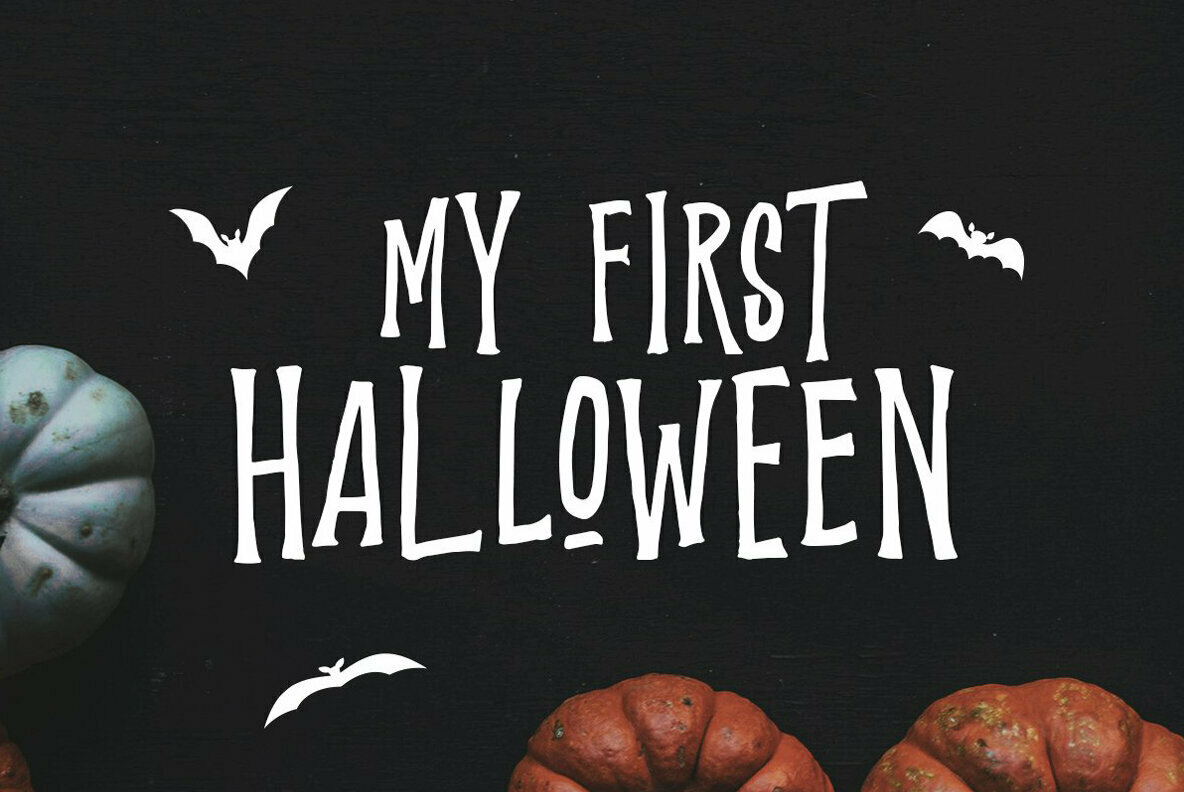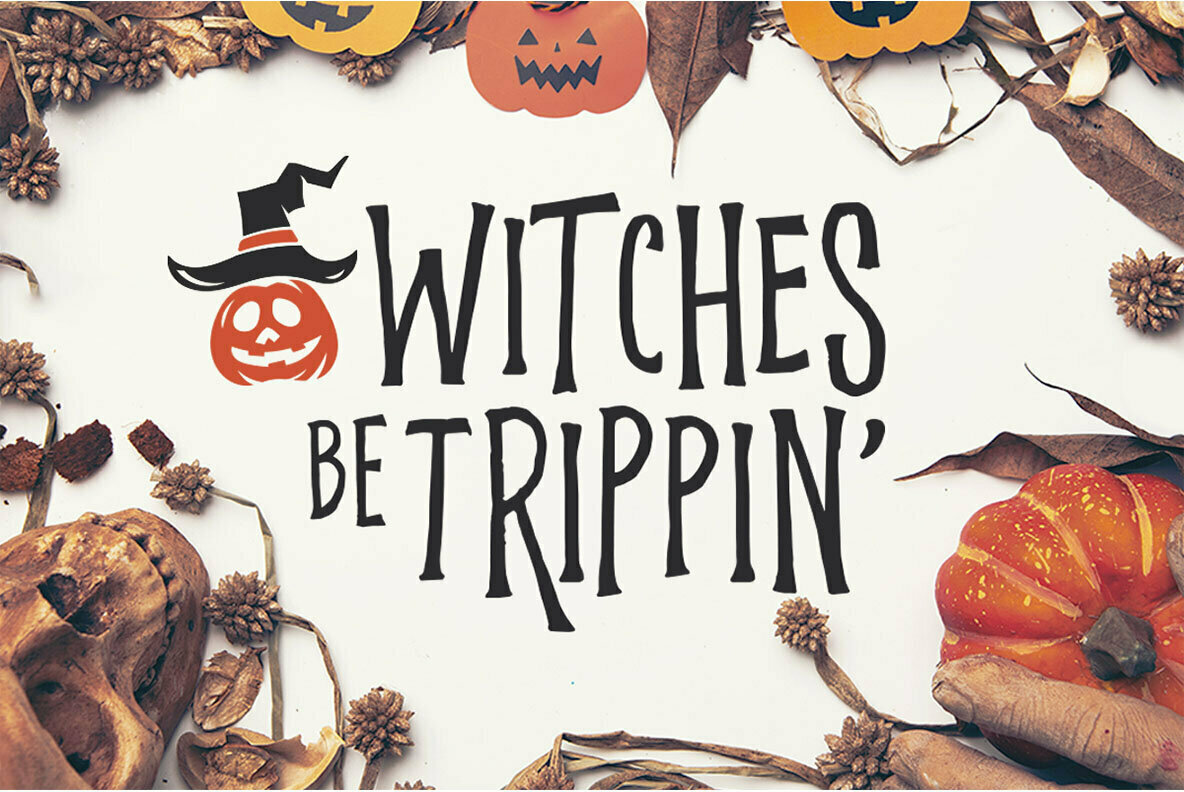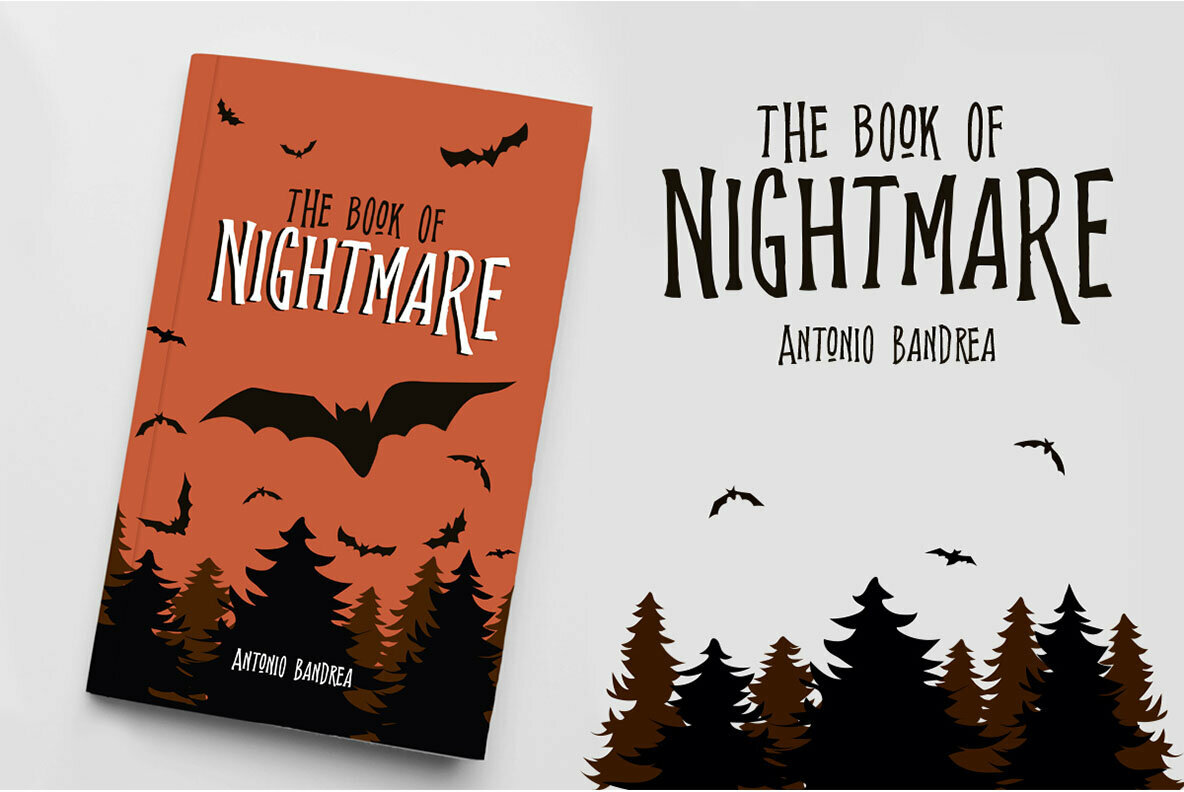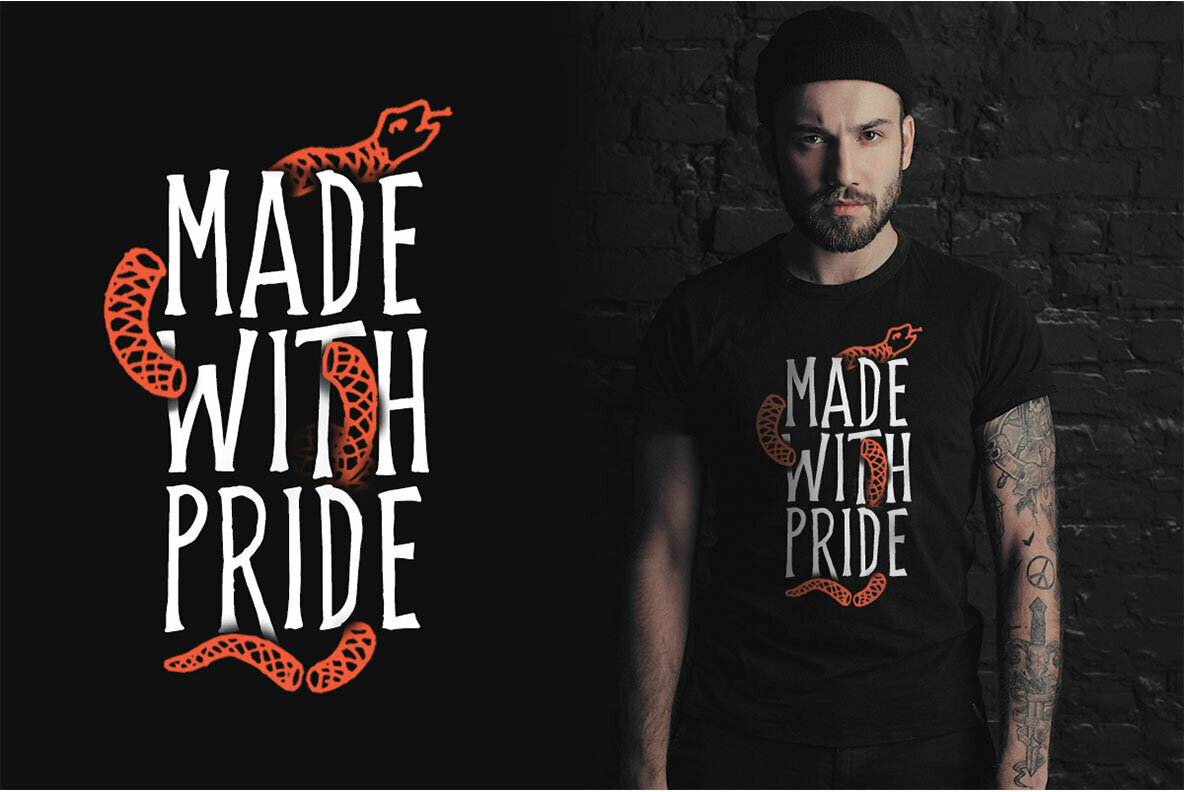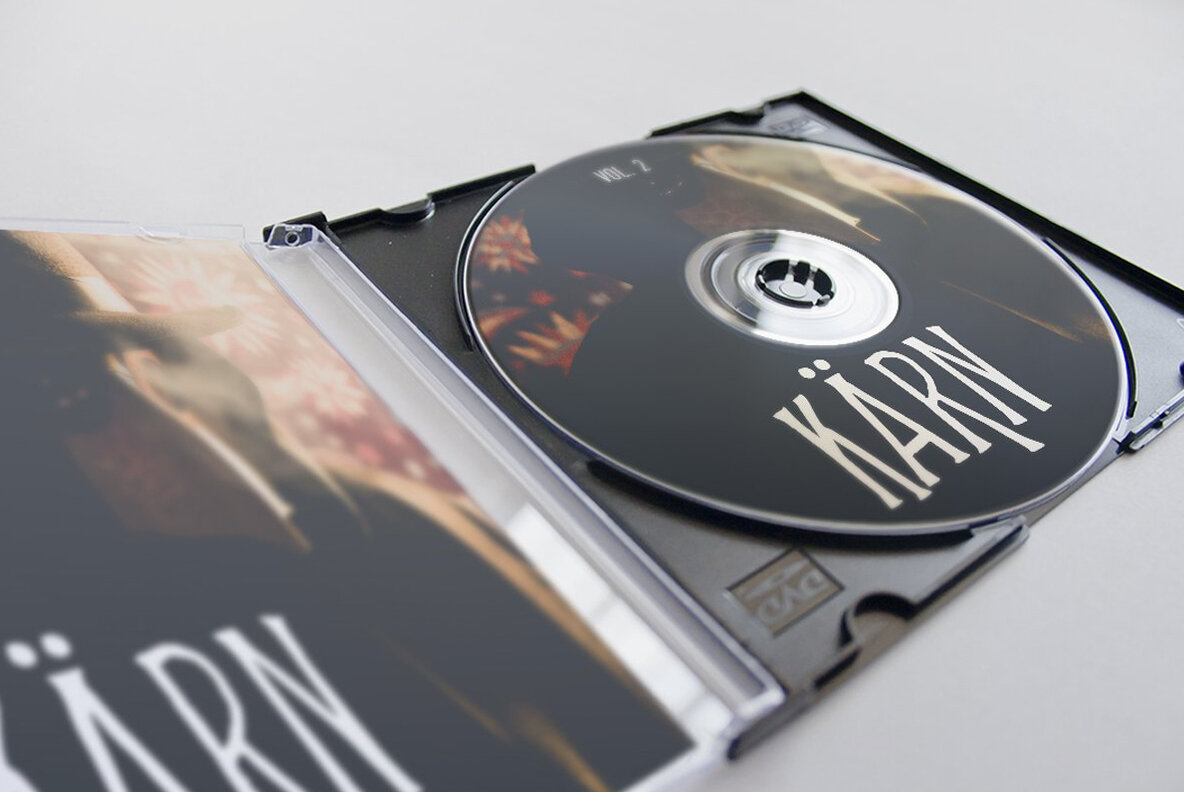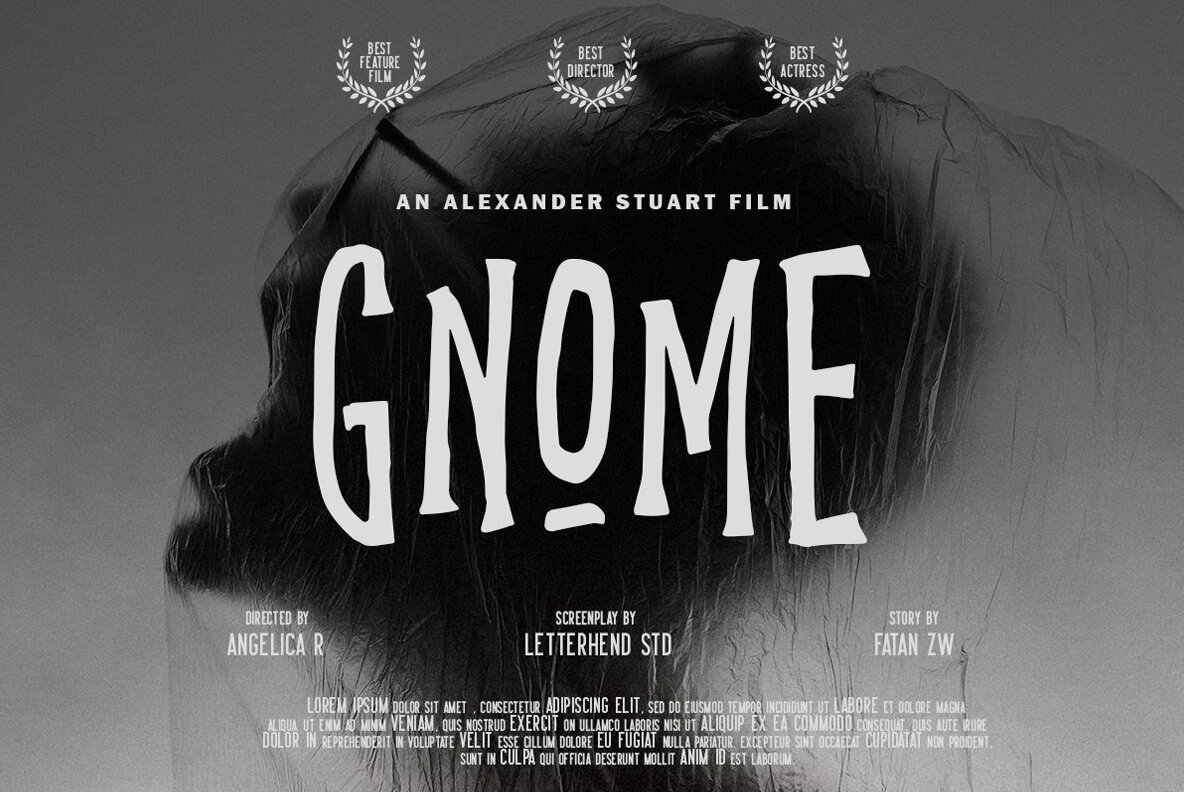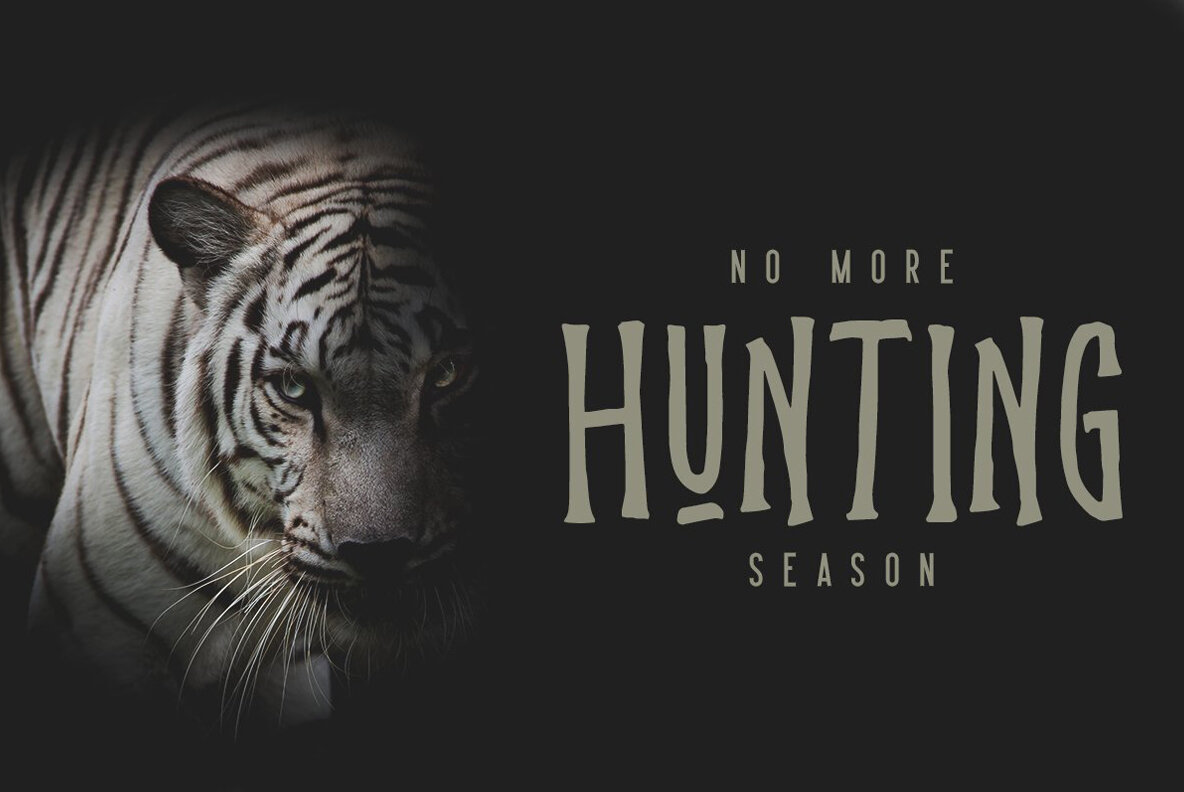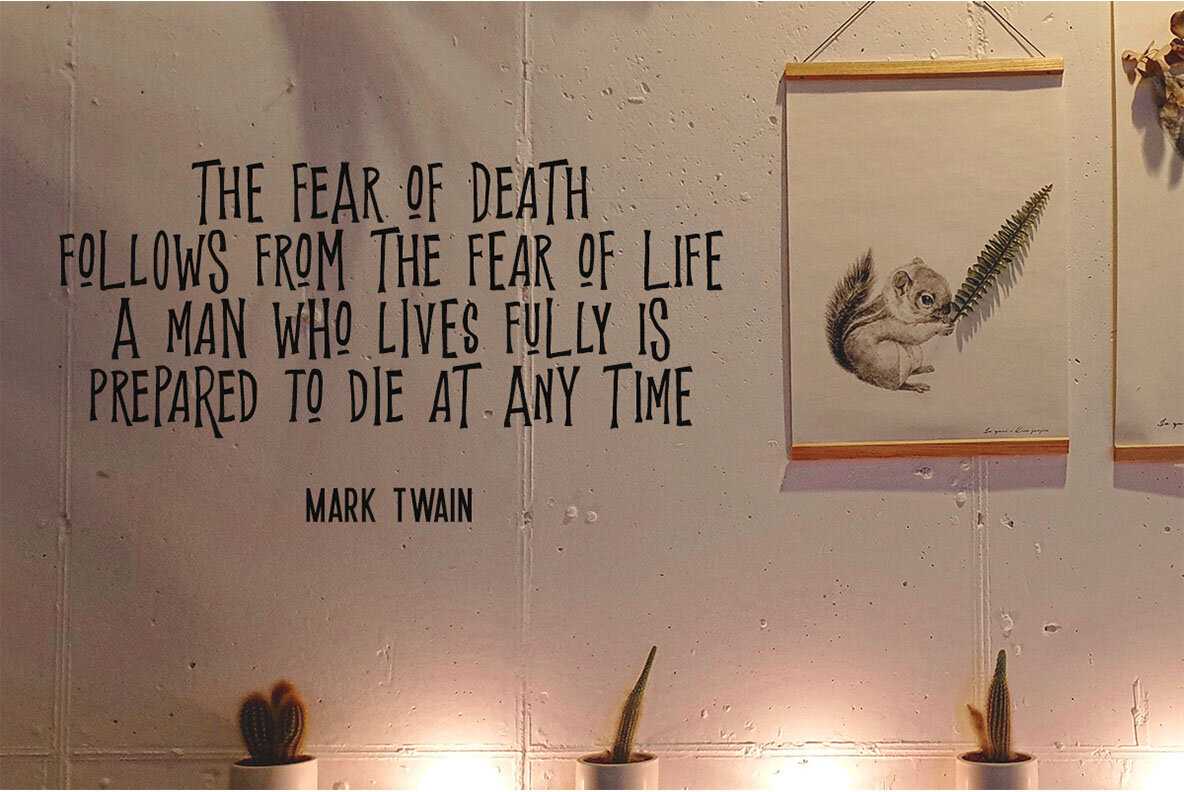
Shockbar Font
Shockbar Regular
Shockbar, crafted by the experts at Letterhend Studio, is an exceptional hand drawn typeface that lends itself gracefully to a myriad of formal and creative applications. From logos and invitations to packaging and advertising, its distinct character and style infuse a personal touch into professional and personal projects alike. Shockbar stands out particularly in designs that demand attention, making it a top choice for creative directors and designers looking for a unique aesthetic. To fully utilize the diverse features of Shockbar, it's advisable to use software that supports OpenType functionalities and Glyphs panels found in many Adobe applications and Corel Draw. This facilitates a seamless design experience, allowing access to all the stylistic nuances this versatile typeface offers.Shockbar: A Hand Drawn Typeface for Versatile Design